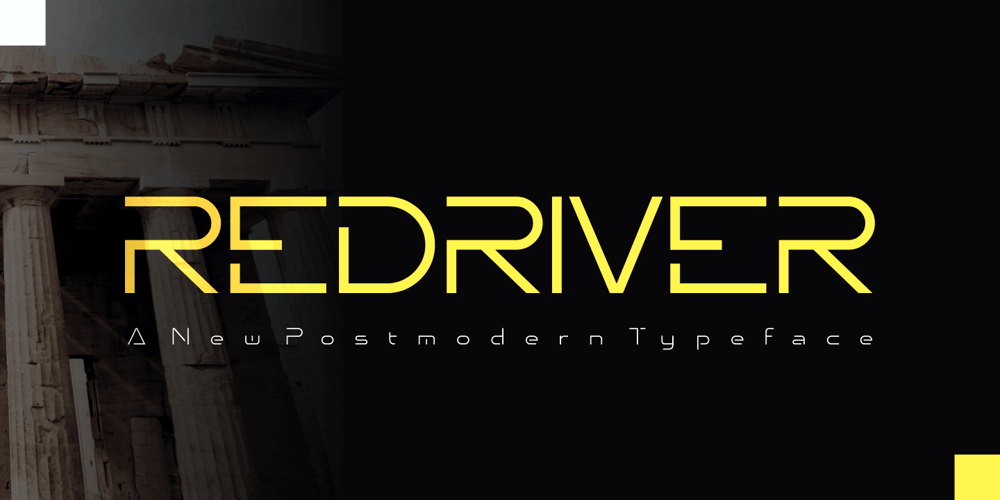
Redriver Font Family was designed by Muhammad Nazarudin and published by Niznaztype. Redriver contains 3 styles and family package options. Redriver is a postmodern font in a futuristic graphic style, mixing characteristics from postmodern, contemporary and even older design styles. Redriver’s strength will be the soul of your graphic designs. Redriver is perfect for futuristic and postmodern graphic art, editorial design, posters, t-shirts, book covers, headlines, advertising, branding, movies titling, and more. Redriver can be used for both short or long text in your designs and comes in 3 styles: thin, regular, and bold.